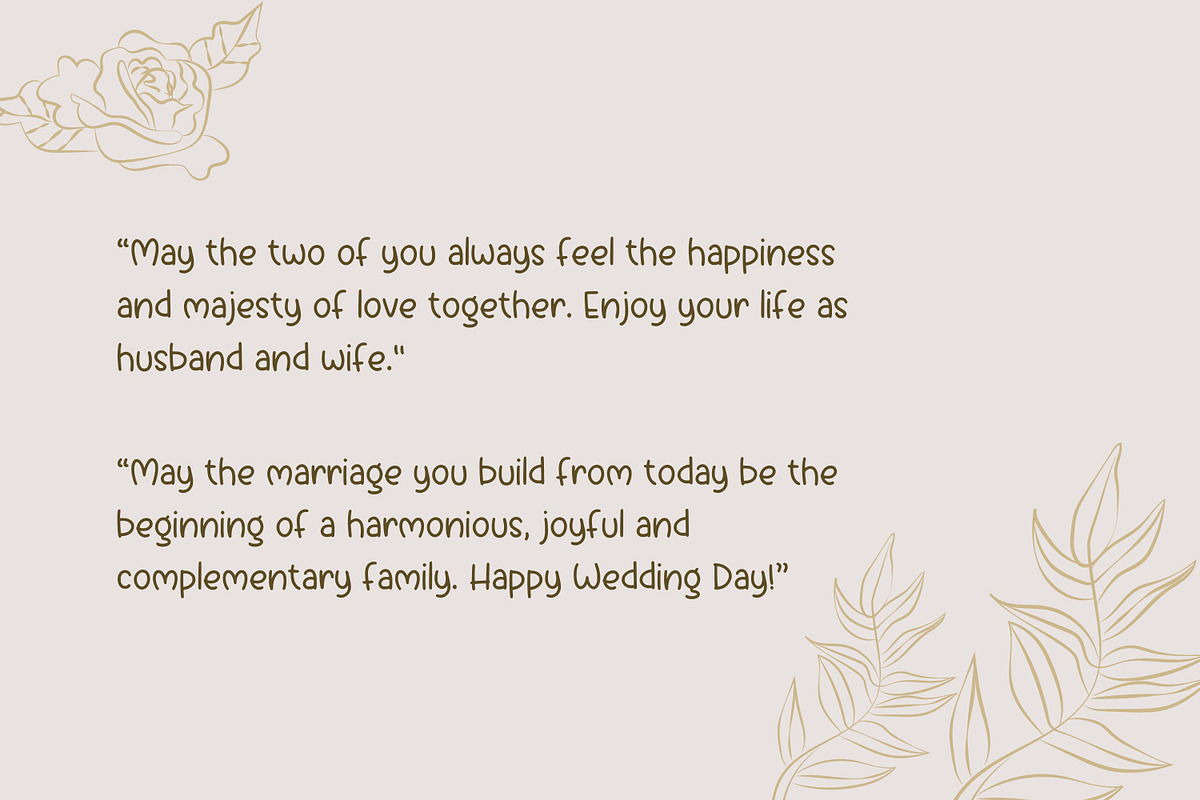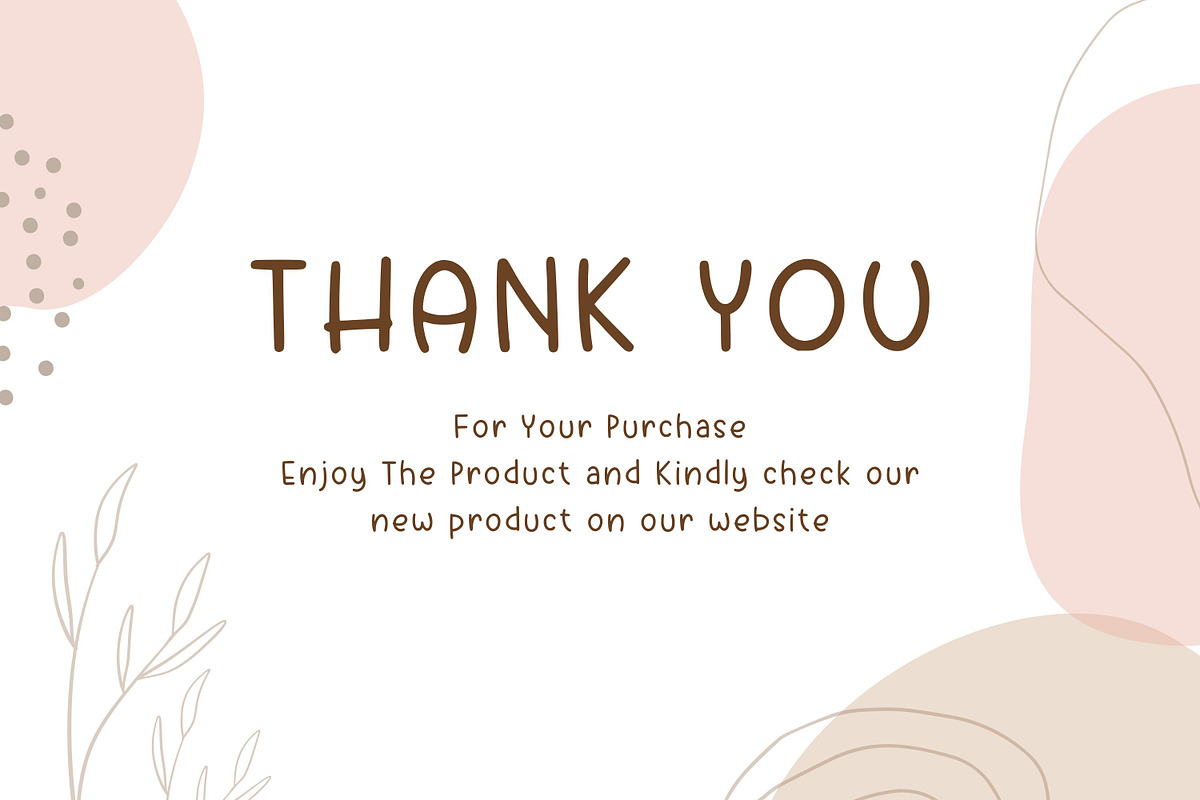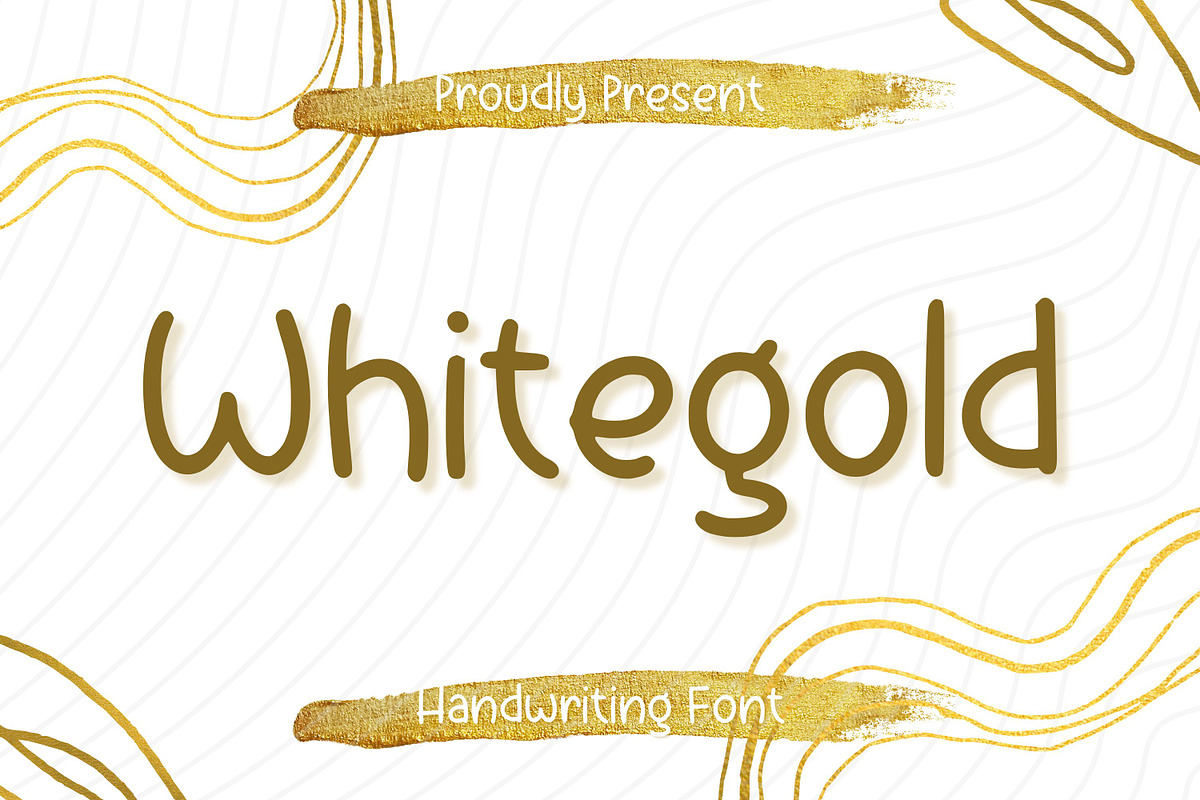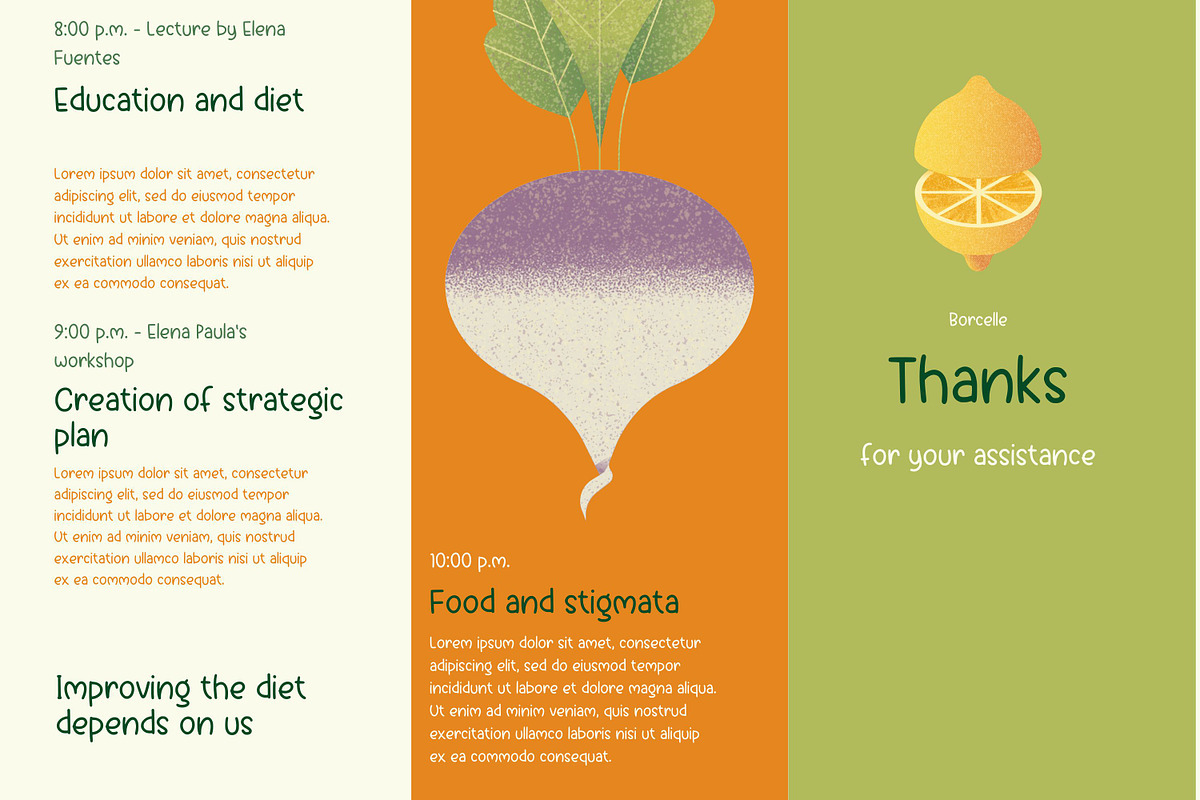
White Gold
White Gold is a stylish and versatile handwriting font that captures the essence of elegance and natural flow. Its smooth, fluid strokes and balanced letterforms make it an excellent choice for a wide range of projects, from wedding invitations and stationery to branding and social media graphics. Designed to convey sophistication and a personal touch, White Gold combines beauty and readability, adding charm to any creative endeavor.